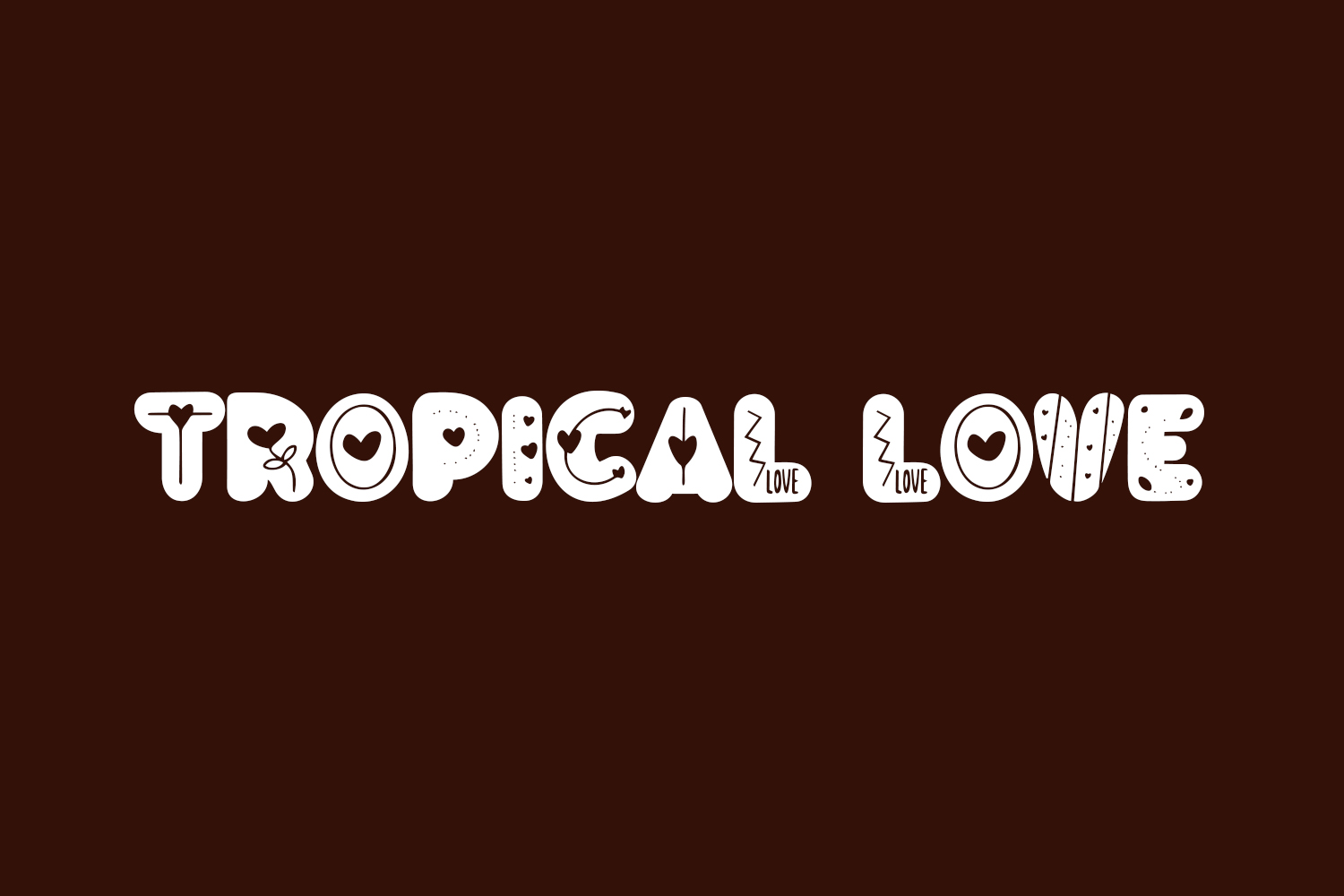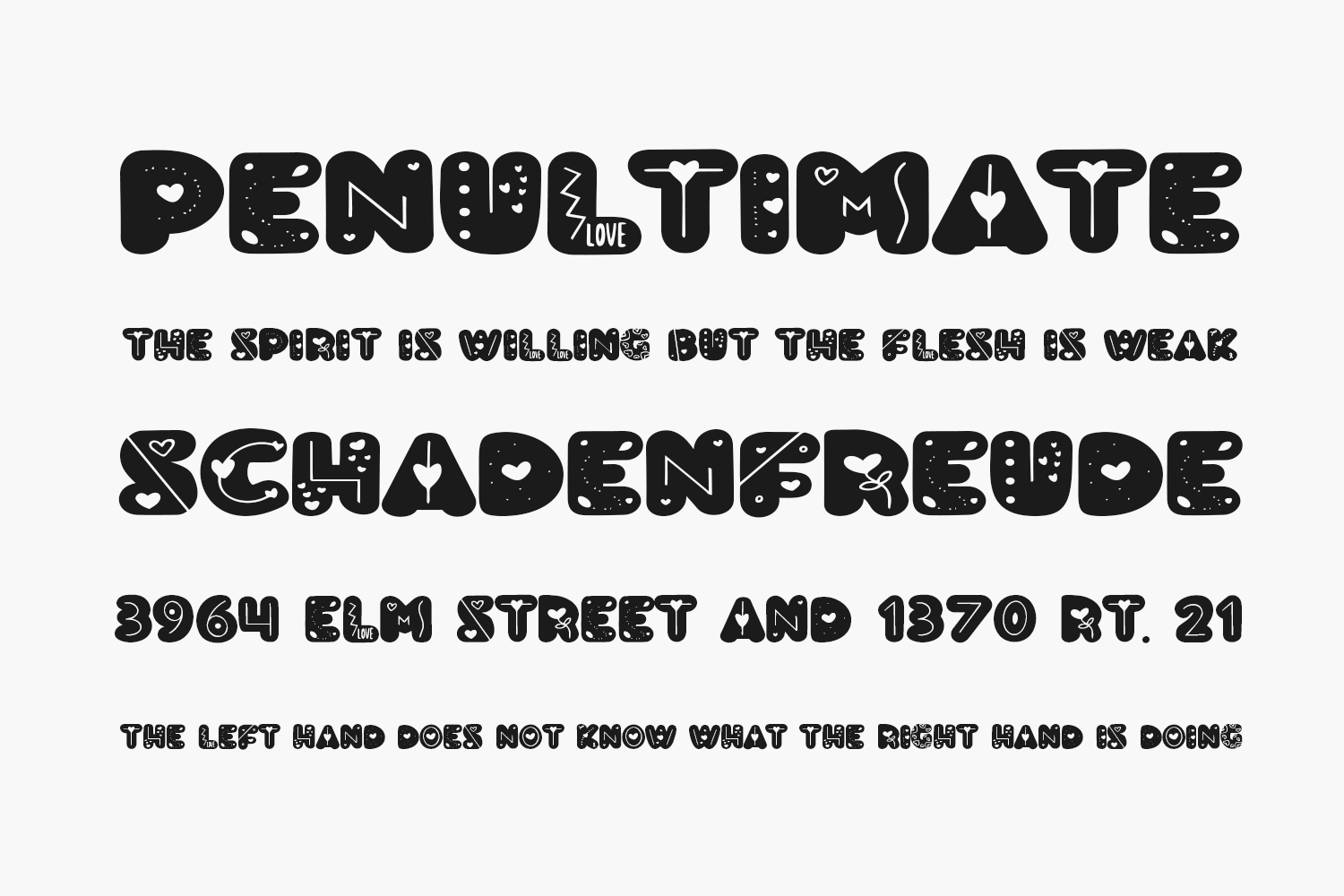
Tropical Love Free Font is an adorable, whimsical, and inviting decorative font. This versatile typeface is a perfect fit for a variety of creative applications, including designs related to cartoons, children’s games, inspirational quotes, eye-catching titles, memorable brand names, captivating book covers, vibrant posters, or any project in need of a delightful touch. Embrace the joyous spirit of this font for your creative endeavors. Tropical Love Free Font is free for personal use only. Please purchase the full version for commercial use.